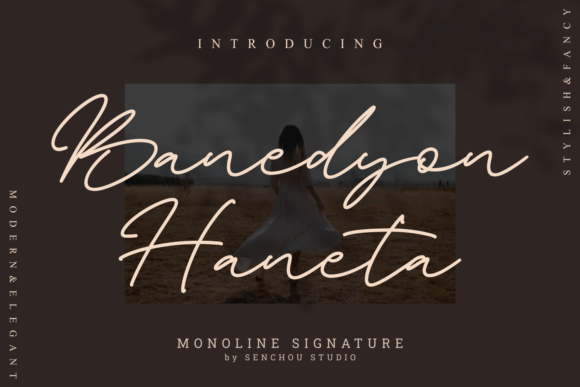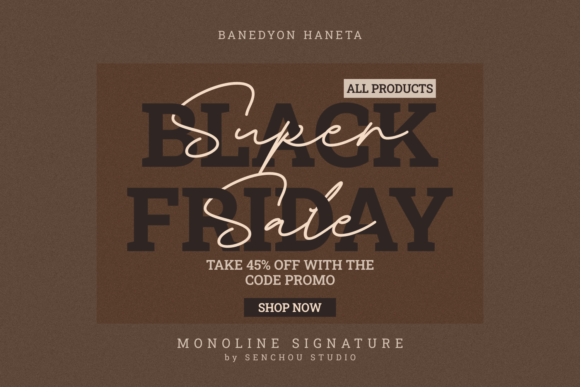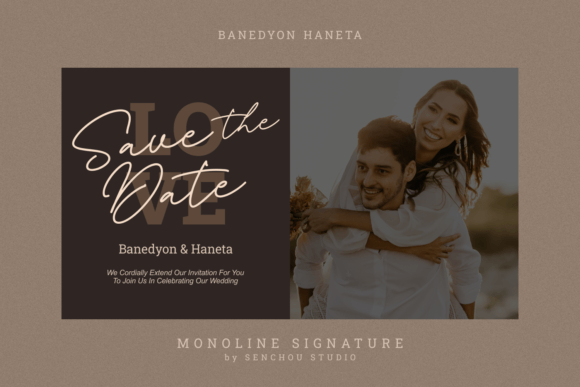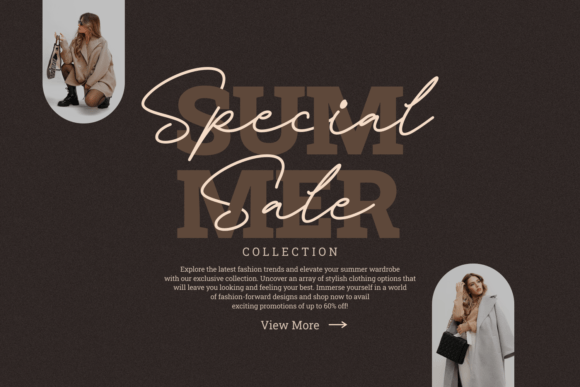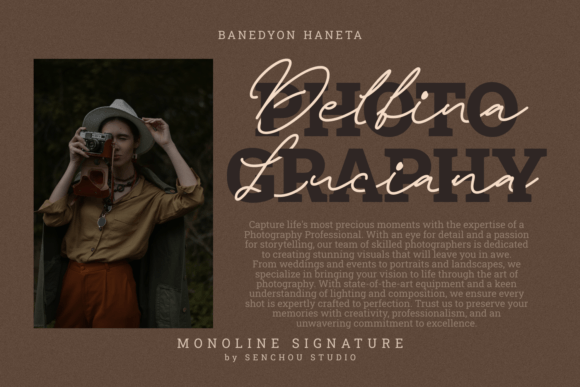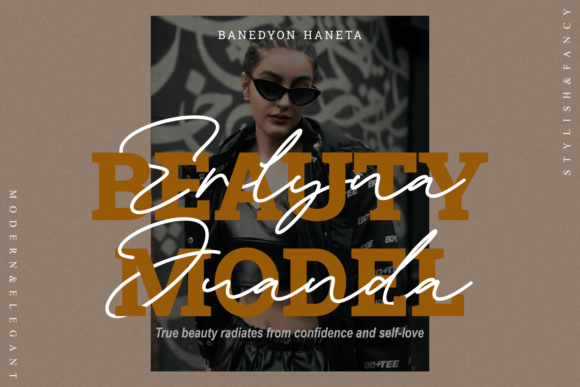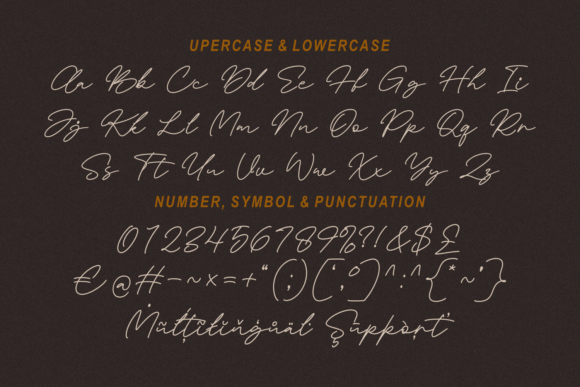
Discover the Magic of Banedyon Haneta Font
Have you ever stared at a blank page, waiting for the perfect font to bring your creative vision to life? It’s that moment of inspiration when everything clicks, and your project starts to take shape. For designers, finding the right font can be the difference between a good design and a great one.
Enter the Banedyon Haneta Font, a stunning script font that’s sure to elevate your creations. Neatly crafted and highly detailed, this font is a wonderful asset to any font library. Whether you’re working on a wedding invitation, a logo, or a book cover, the Banedyon Haneta Font has the potential to add that special something that sets your project apart.
As a valuable addition to your design arsenal, the Banedyon Haneta Font offers endless possibilities for creativity and expression.
Banedyon Haneta Font Key Features
- Font Family: Banedyon Haneta, a unique and elegant script font designed to add a touch of sophistication to any design.
- Unique Characteristics: Features a distinctive handwritten style with fluid connections and subtle flair, adding a personal touch to any design.
Designer Review: Banedyon Haneta Font
Overall, I was excited to dive into the world of Banedyon Haneta Font. Here’s my honest take on what makes it shine and where it falls short.
- Clean and Modern Aesthetic: Banedyon Haneta Font has a sleek, modern design that’s perfect for creating a sophisticated look in your designs.
- Unique Letterforms: The font’s unique letterforms and flourishes add a touch of elegance and whimsy to your text.
- Highly Legible: Despite its ornate design, Banedyon Haneta Font is surprisingly easy to read, making it a great choice for body text.
- Limited Character Set: Banedyon Haneta Font has a relatively limited character set, which may not be suitable for projects that require a wide range of characters.
- Not Ideal for Small Text: While the font is highly legible, it may not be the best choice for small text sizes, as the letterforms can become difficult to read.
Overall, Banedyon Haneta Font is a great choice for designers who want to add a touch of elegance and sophistication to their projects. While it has some limitations, its unique design and high legibility make it a great addition to any designer’s toolkit.
Tip: Use the Banedyon Haneta font to add a touch of elegance to your designs. It’s perfect for headings and titles.
Tip: Use the Banedyon Haneta font to create a unique and eye-catching design. It’s perfect for logos and branding materials.
Tip: Use the Banedyon Haneta font to add a touch of sophistication to your presentations and documents.
The Banedyon Haneta font is perfect for:
- Presentations and documents
- Editorials and articles
Alternatives to Banedyon Haneta Font
Playfair Display is a luxurious and elegant serif font that is perfect for creating a high-end feel. It’s ideal for use in logos, headings, and titles where a touch of sophistication is required. Compared to Banedyon Haneta Font, Playfair Display is more refined and formal, making it a better choice for formal invitations, luxury brands, and high-end publications.
Great Vibes is a beautiful and elegant script font that is perfect for adding a touch of whimsy and personality to your designs. It’s ideal for use in logos, headings, and titles where a sense of playfulness and creativity is required. Compared to Banedyon Haneta Font, Great Vibes is more casual and relaxed, making it a better choice for creative and artistic projects, such as fashion brands, advertising, and social media graphics.
Crimson Text is a elegant and sophisticated serif font that is perfect for creating a classic and timeless feel. It’s ideal for use in body text, headings, and titles where a sense of tradition and heritage is required. Compared to Banedyon Haneta Font, Crimson Text is more formal and traditional, making it a better choice for historical and cultural projects, such as books, academic papers, and museum exhibitions.